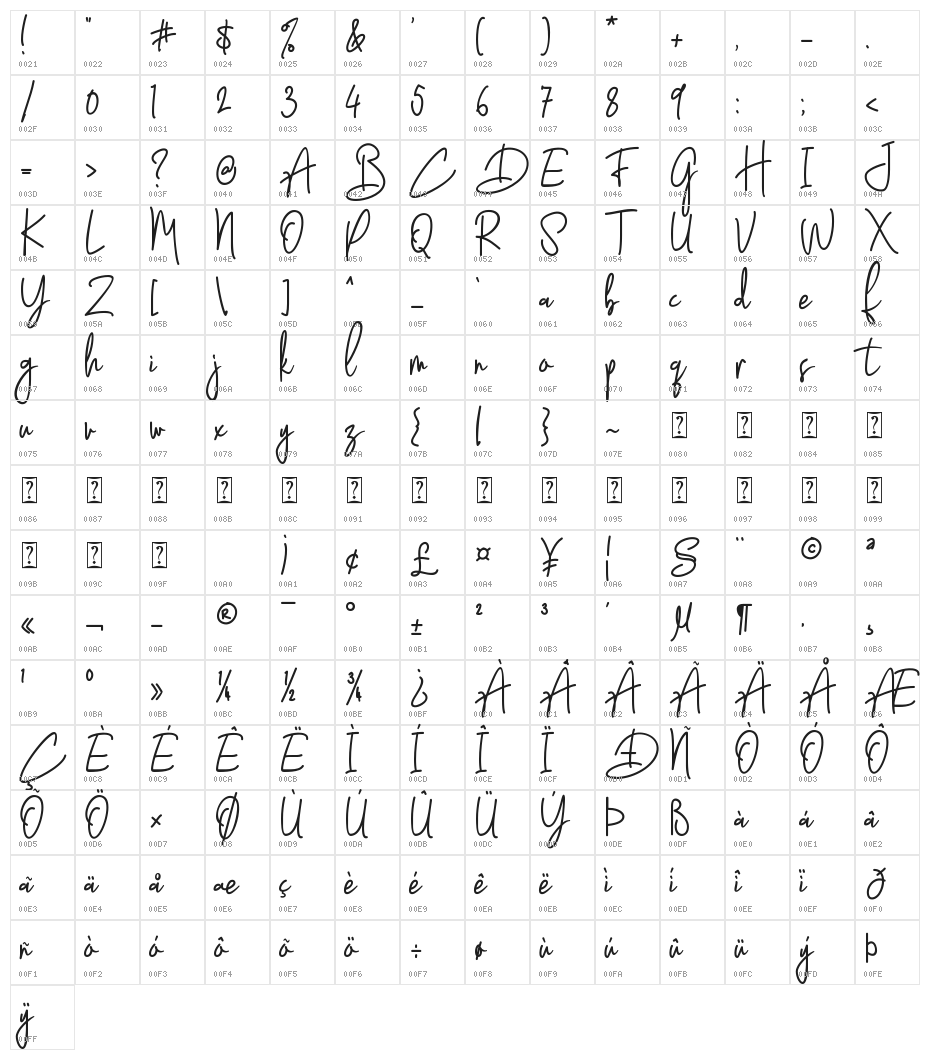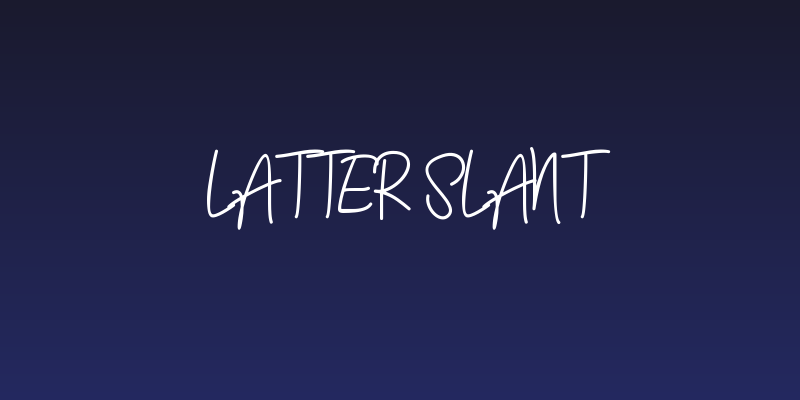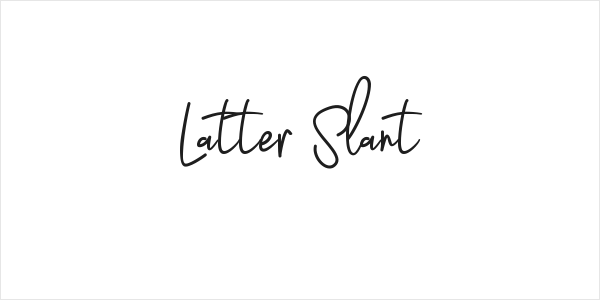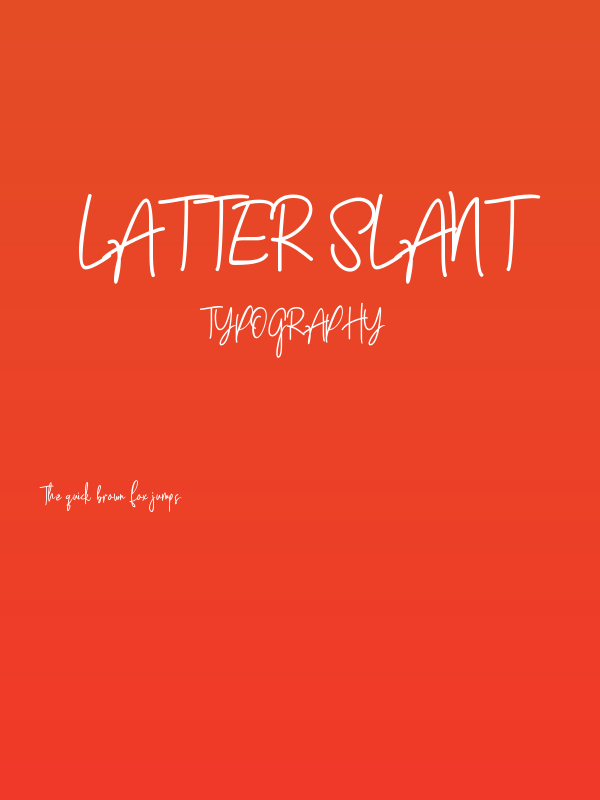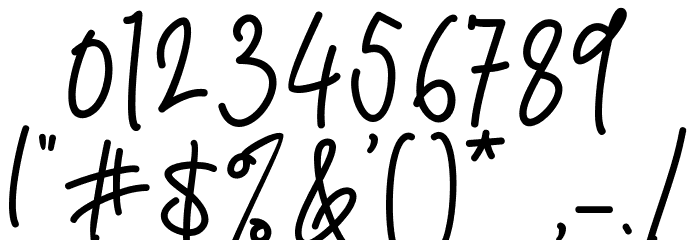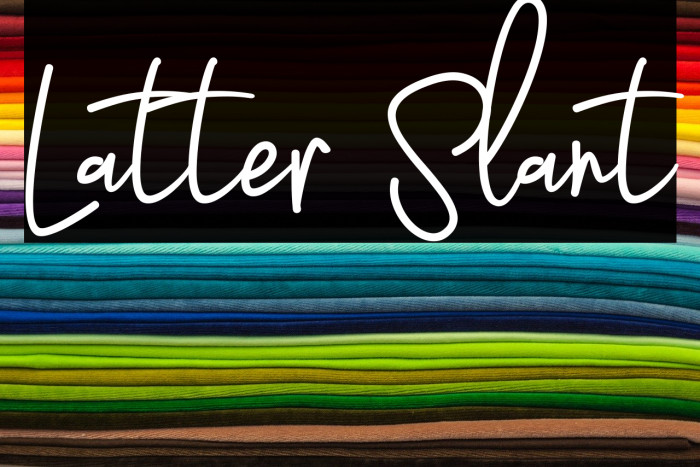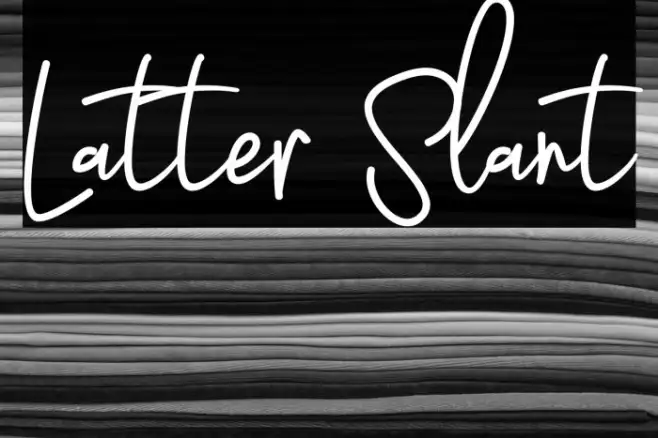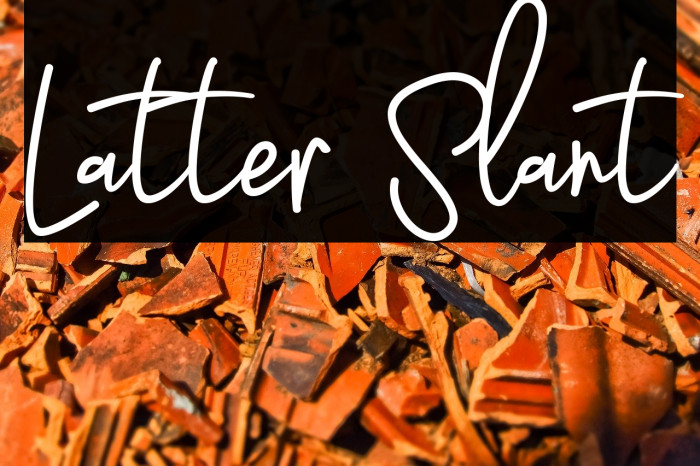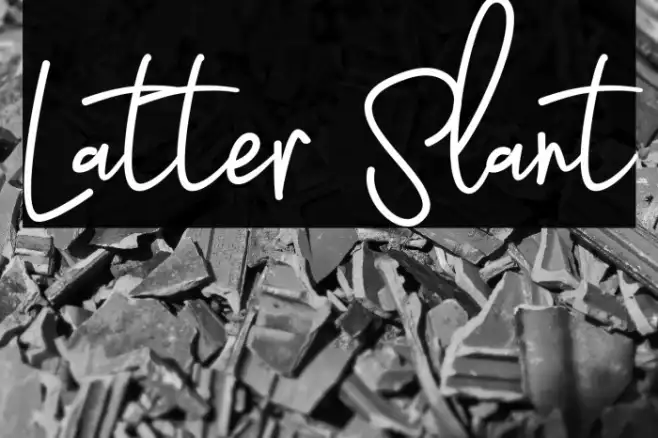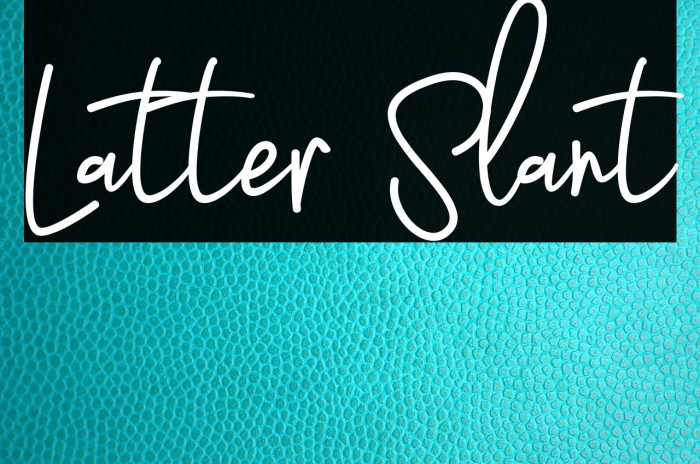
Latter Slant Font
Latter Slant Description
This font exhibits a dynamic and expressive handwritten style, characterized by its fluid and slanted letterforms. The uppercase letters are bold and slightly elongated, giving a sense of movement and energy. The lowercase letters maintain a consistent slant, enhancing the handwritten feel. Numbers are clear and legible, with a playful touch that complements the overall style. Special characters are well-integrated, maintaining the font's cohesive appearance. This font is ideal for projects that require a personal and informal touch, such as greeting cards, invitations, or creative branding.
| Use Case | Logos, Headlines, Personal projects |
| Proposed Projects | Ideal for greeting cards, invitations, creative branding, and personal projects. |